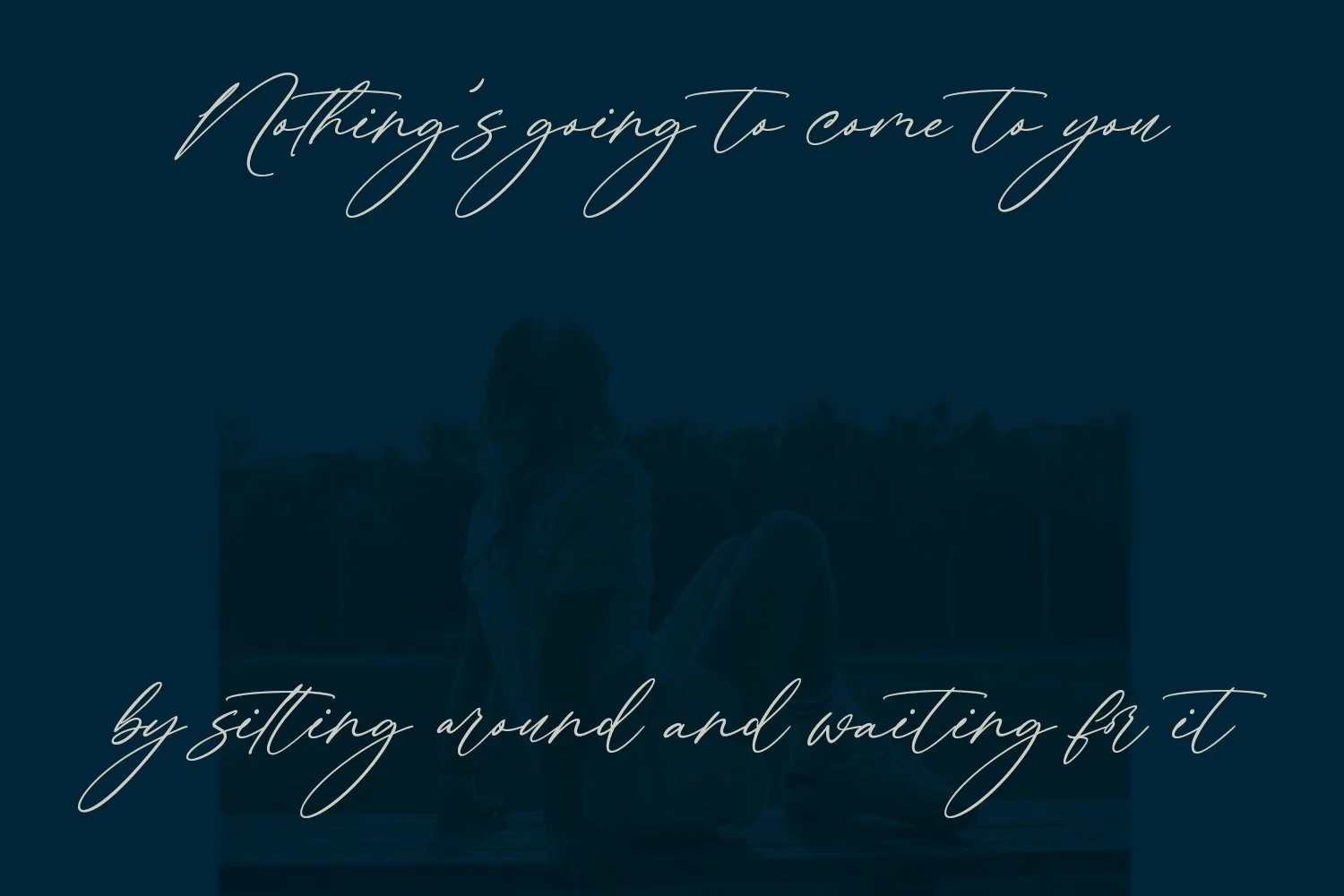
Romantic Purple Signature Font
Romantic Purple is an expressive signature script font. With tall extra light contrast stroke, fun character with a bit of ligatures and alternates. To give you an extra creative work. Romantic Purple font support multilingual more than 100+ language. This font is good for logo design, Social media, Movie Titles, Books Titles, a short text even a long text letter and good for your secondary text font with sans or serif. Make a stunning work with Romantic Purple font.